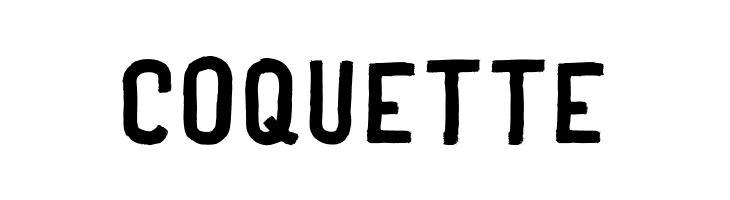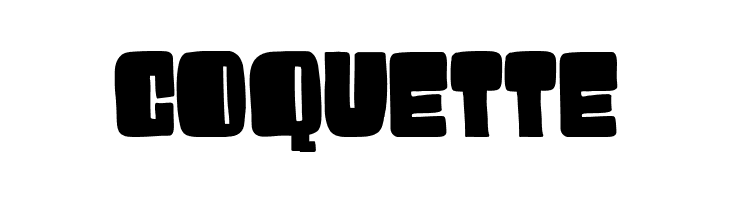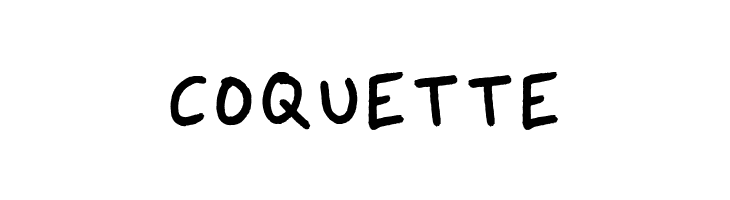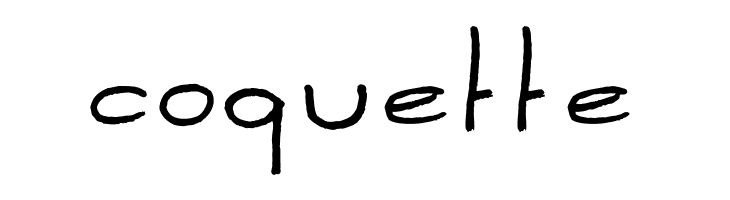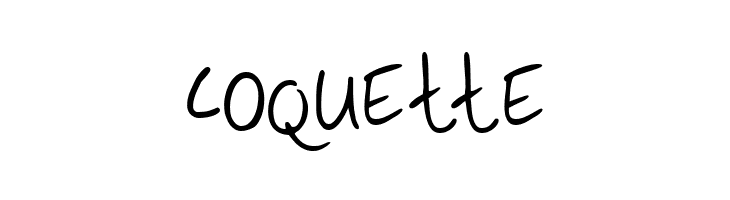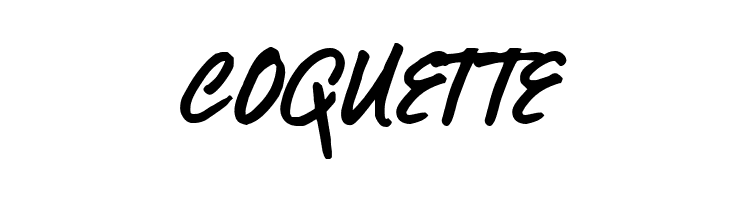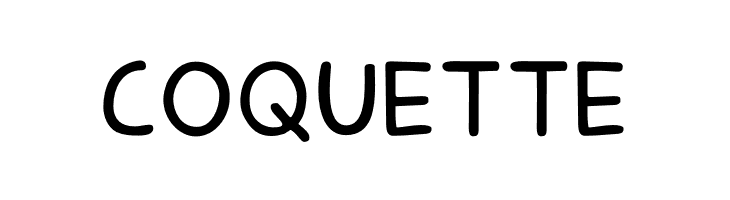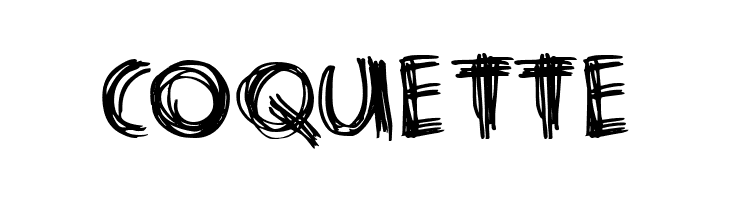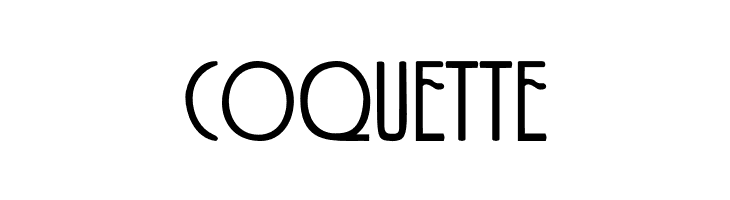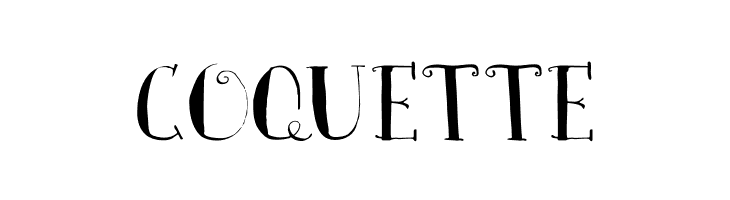
A bold, hand-drawn font with a textured, sketch-like appearance.
A bold, geometric font with a modernist and abstract style.
A whimsical and decorative font with vintage-modern elements and playful serifs.
A bold, brush-style font with dynamic strokes and an artistic flair.
A playful, casual handwritten font with a relaxed, flowing style.
A playful, casual handwritten font with uneven strokes and a friendly appearance.
A playful, handwritten font with a casual and whimsical style.
A playful, handwritten-style font with bold, uniform strokes.
A playful, handwritten-style font with bold, rounded characters.
A bold, rugged font with a distressed, hand-crafted appearance.
A bold, hand-painted style font with a vintage, rugged appearance.
A whimsical, decorative font with charming swirls and curls.
A bold, playful font with a chunky, hand-drawn style.
A playful, Art Deco-inspired font with tall, slender characters and a whimsical touch.
A lively and dynamic handwritten font with fluid strokes.
A playful, hand-drawn font with bold, rounded characters and whimsical gnome illustrations.
A whimsical, hand-drawn font with spiral embellishments and uneven strokes.
A playful, handwritten font with bold, rounded characters.
A bold, playful font with thick, blocky, and whimsical characters.
A playful, handwritten font with fluid, dynamic strokes and a casual feel.
A bold, handwritten font with dynamic and energetic characters.
A playful, rounded font with a bold and friendly appearance.
A playful, hand-drawn font with a whimsical and organic style.
A playful, casual handwritten font with irregular strokes and a lively appearance.